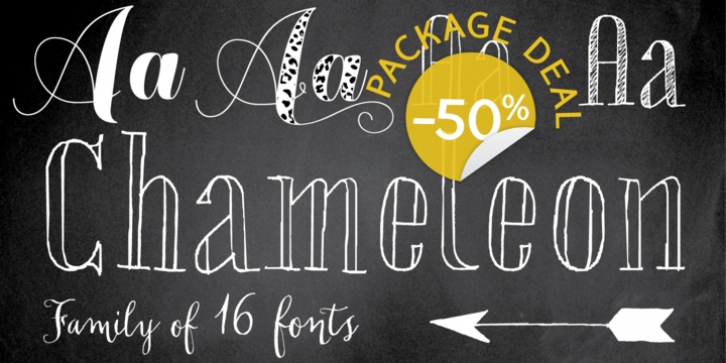
Chameleon was designed by Hanneke Classen and published by Fontforecast. Chameleon contains 16 styles and family package options.
Chameleon consists of 16 fonts based on 3 completely different designs. Different but specially designed to complement each other. Together they form a well-balanced design kit suitable for many different projects, e.g. invites, menus, magazines, brochures, packaging, etc.
Chameleon comes in three styles: 2 outline versions and a basic (solid) version. To combine Chameleon with Chameleon Fill, you will need an application that allows you to stack text frames. Once you start layering different fills, like a true chameleon, you can change colors and patterns. Simply place several layers on top of each other, choose from 7 fills to determine your pattern and assign a color to the fill. Always place one of the outline versions of Chameleon on the top layer.
Chameleon Pen was added to give you the possibility to spice up your design with a personal touch. It is a charming handwritten font, which was first written out with a dip pen and ink, then scanned in and digitalized. It comes in regular and italic.
And then there is Chameleon Sketch for a bit of nonchalance to add to your designs. The Outline, Hatch and Solid version can be used separately, or stacked to create a shadowy or multi-colored effect. On top of that, you'll find 102 glyphs of extra fun to play with in Chameleon Sketch Extra.
· Chameleon Basic
· Chameleon Outline 1
· Chameleon Outline 2
· Chameleon Fill Solid
· Chameleon Fill Skin 1
· Chameleon Fill Skin 2
· Chameleon Fill Stripe 1
· Chameleon Fill Stripe 2
· Chameleon Fill Stripe 3
· Chameleon Fill Stripe 4
· Chameleon Pen
· Chameleon Pen Italic
· Chameleon Sketch Basic
· Chameleon Sketch Hatch
· Chameleon Sketch Outline
· Chameleon Sketch Extra